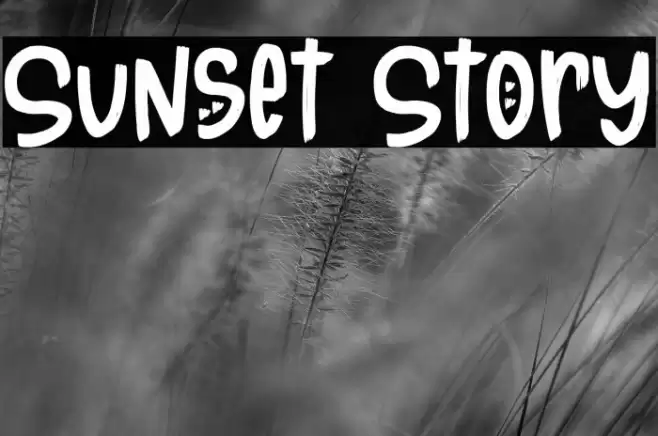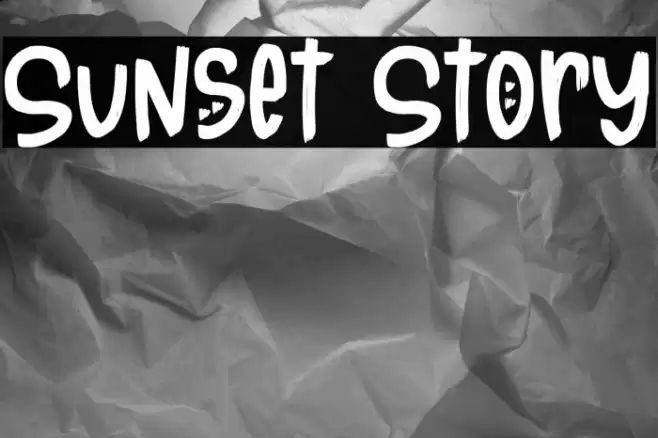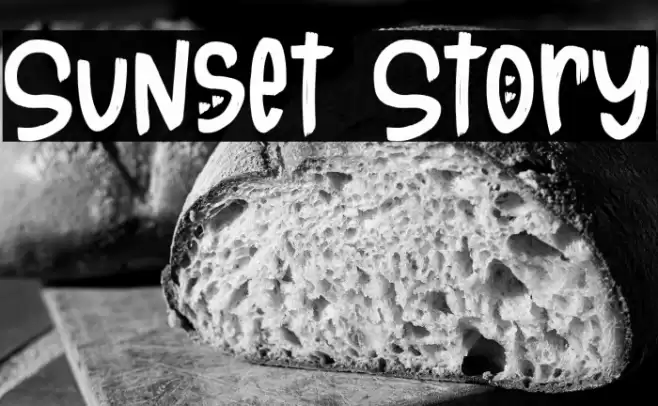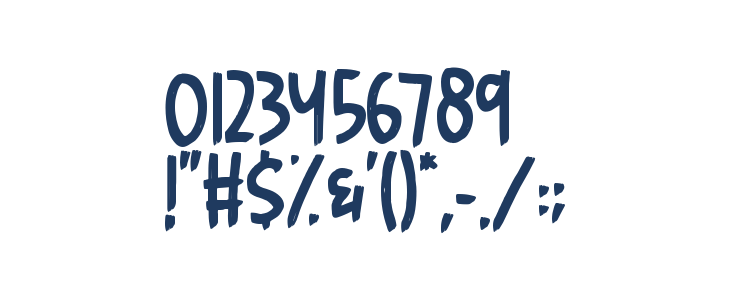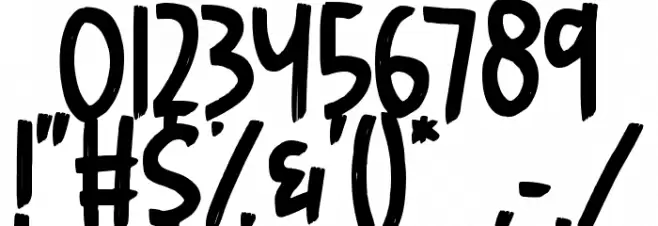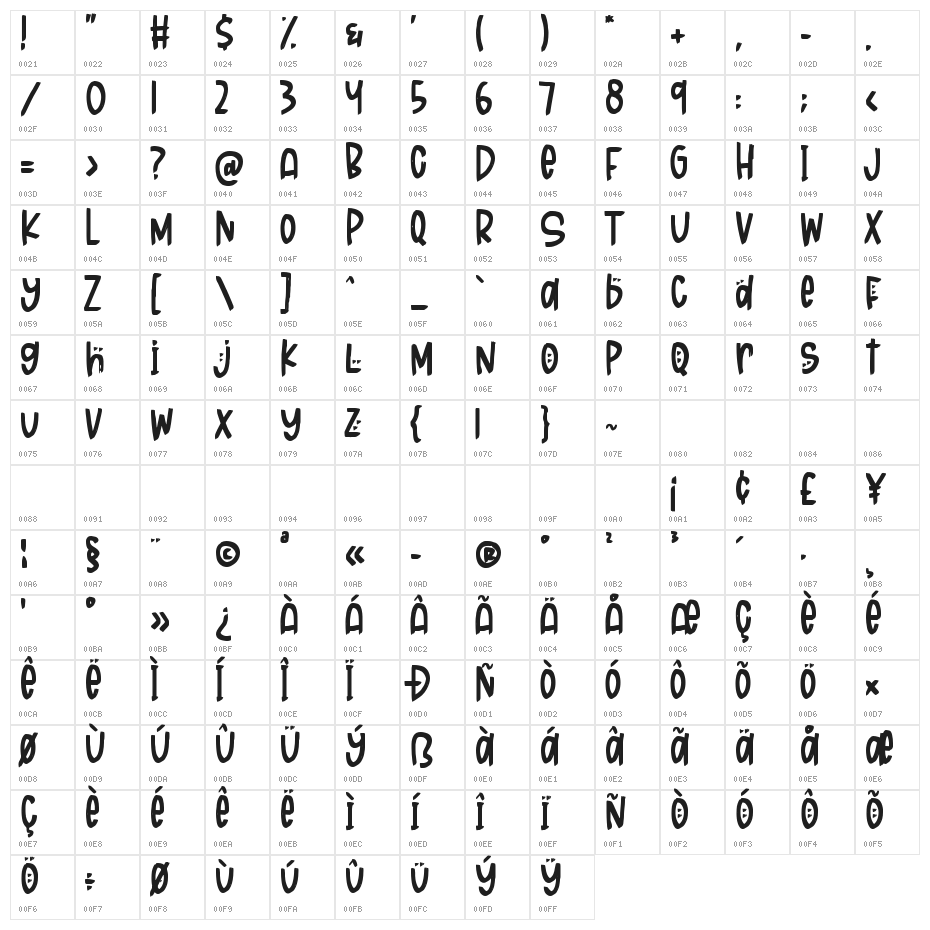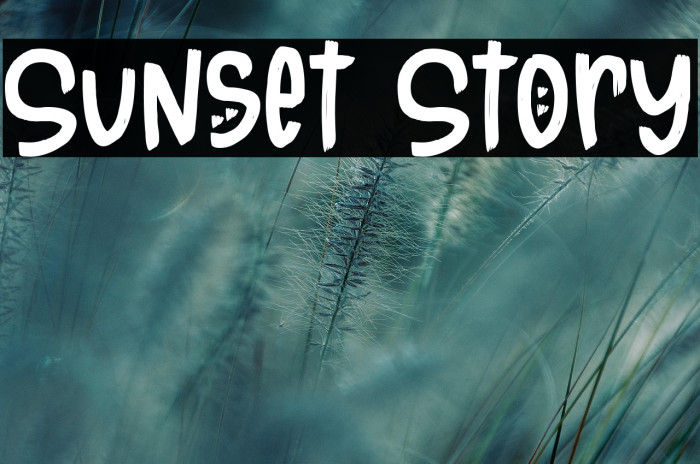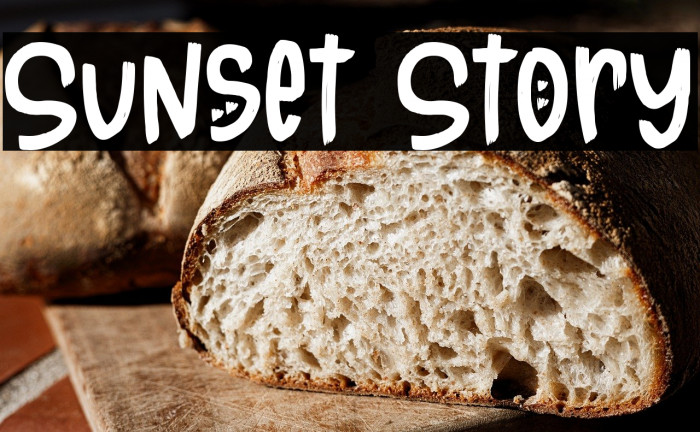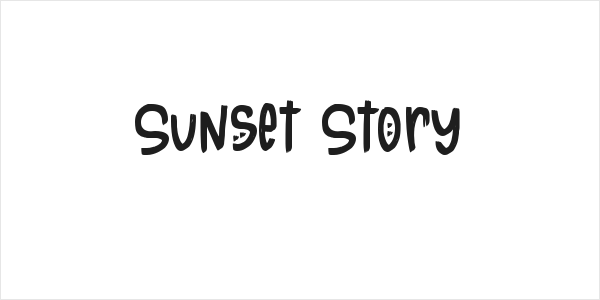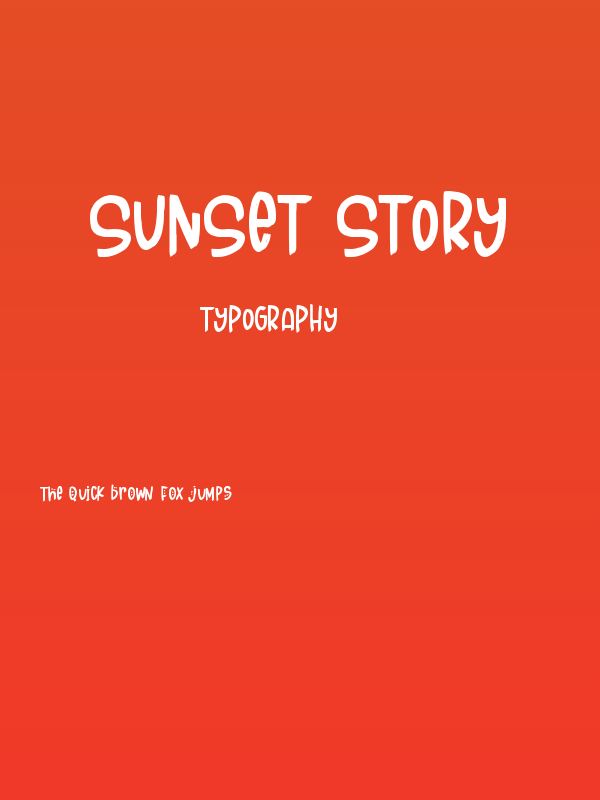
Sunset Story Font
Sunset Story Description
This font features a bold, playful style with a hand-drawn appearance. The letters are slightly irregular, adding a whimsical and artistic touch. The strokes are thick and have a brush-like texture, giving the font a dynamic and energetic feel. The uppercase and lowercase letters maintain a consistent style, with rounded edges and a casual, friendly vibe. The numbers and special characters follow the same design principles, ensuring a cohesive look across all elements. This font is ideal for projects that require a fun and informal aesthetic.
A bold, playful, hand-drawn font with a whimsical and artistic style from Regular fonts.
- Proposed Projects: Ideal for children's books, playful branding, creative posters, and social media graphics.